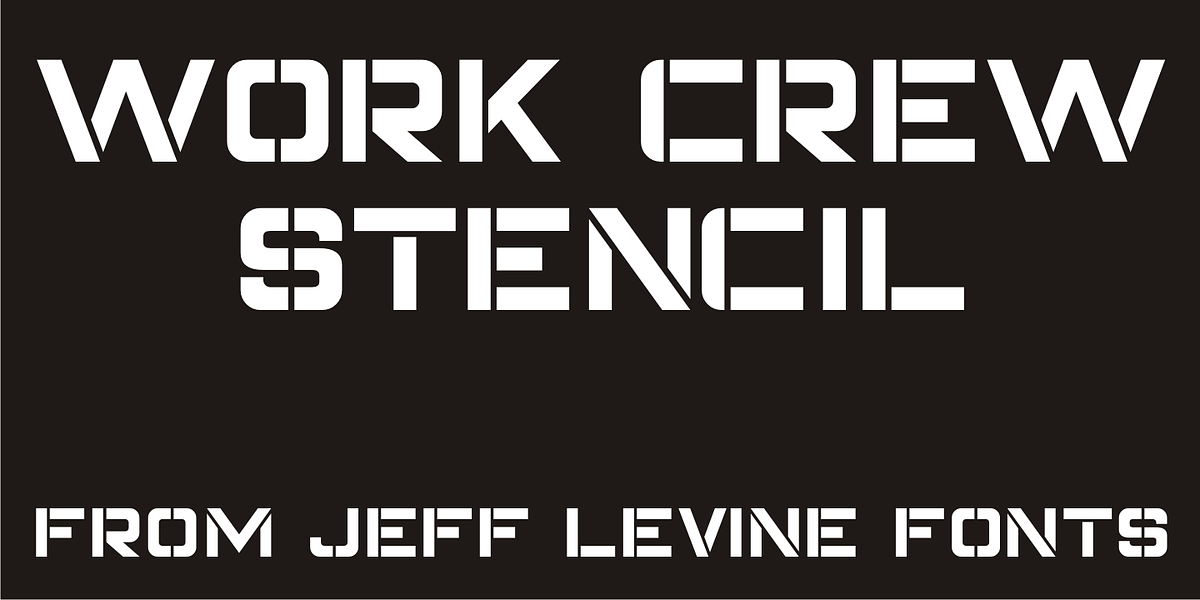
Work Crew Stencil JNL
In the 1949 Paramount comedy “My Friend Irma” (a film based on the popular radio series that introduced America to Dean Martin and Jerry Lewis), an opening gag set-up involving excavation work utilizes street barricades which inspired Work Crew Stencil JNL.
Placed along the site, different advisories are stenciled upon barricades warning of the work in progress. The scatterbrained Irma (Marie Wilson) walks straight through the construction, oblivious as to what’s going on around her and steps right into the open hole dug into the sidewalk (a scene she reprises in 1950’s “My Friend Irma Goes West”).